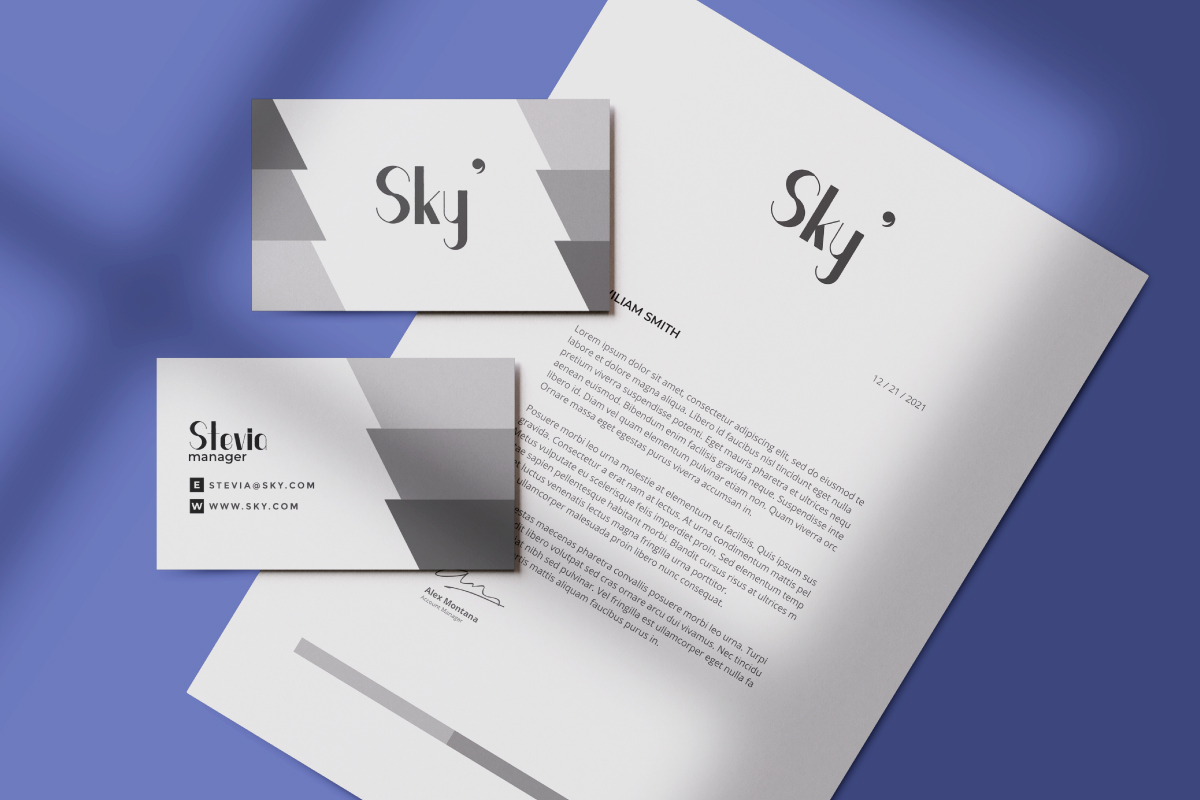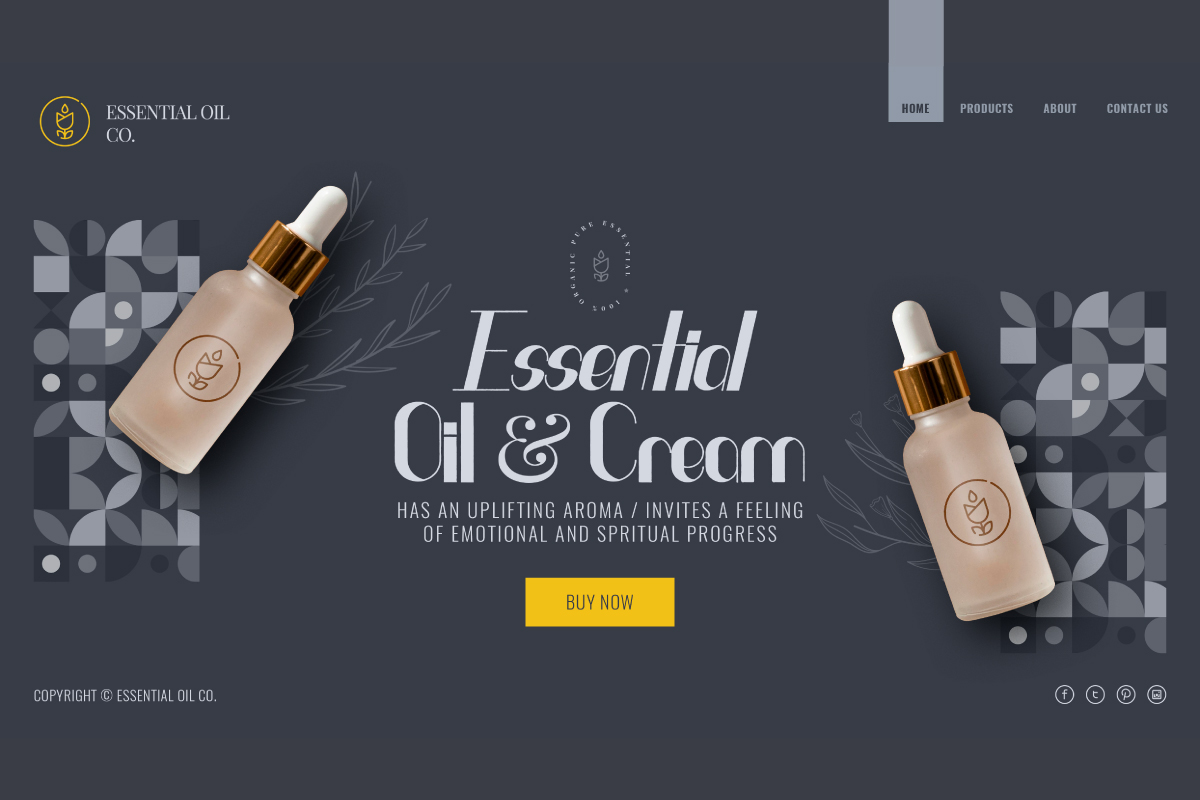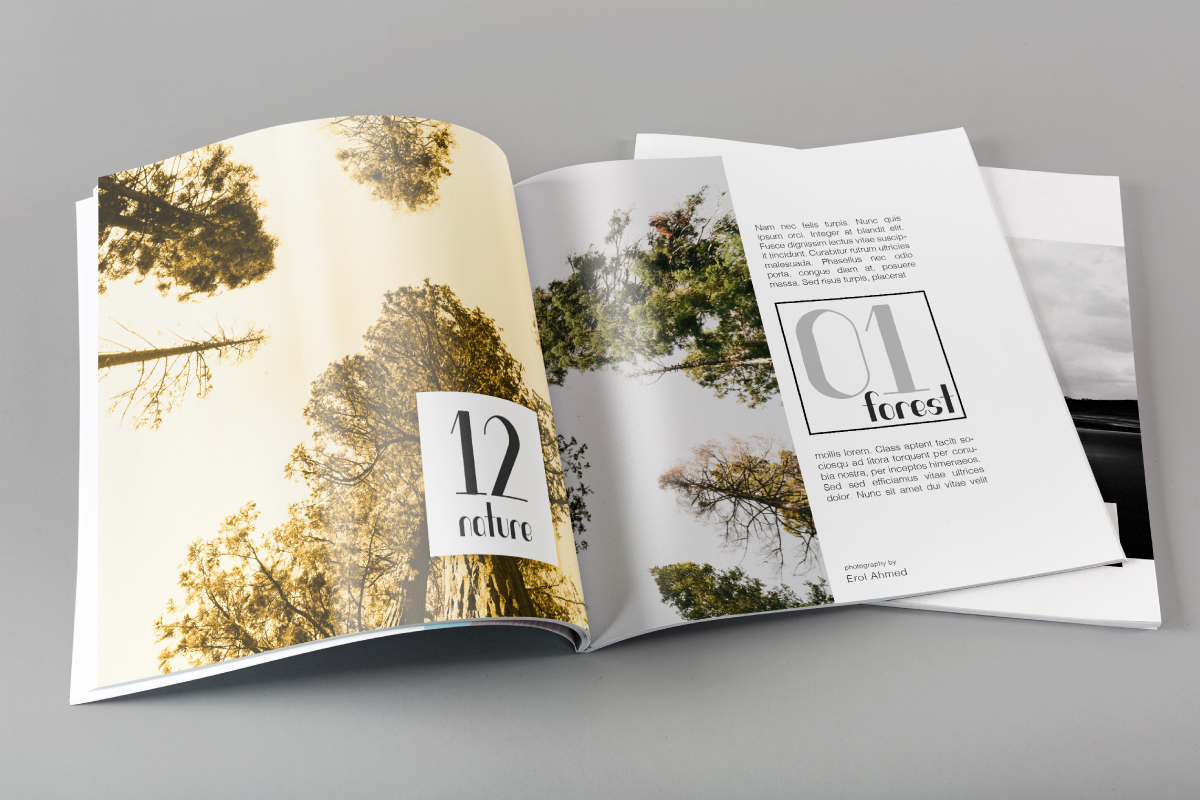
Harmonis Sans Serif Font
This font will be great for any projects including : branding, logo, stationery, business card, signage, flyer, brochure etc. Harmonis Font comes with unique and exclusive letter style to make it standout and uniquely different.